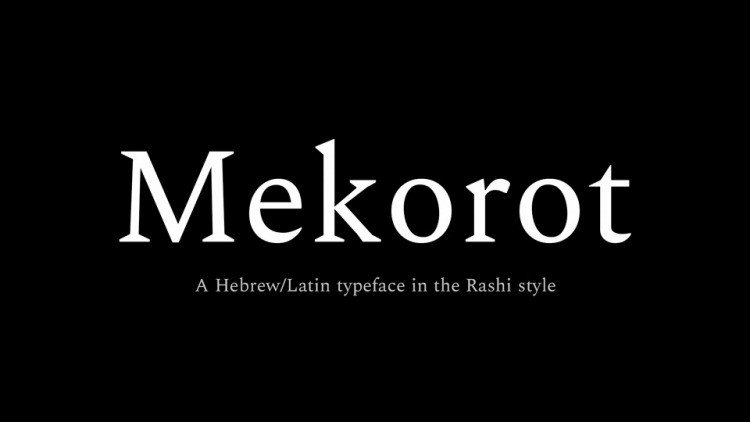
Mekorot Font
Mekorot Font is a free serif typeface in the Rashi style based on the original work by Dr. Alan Hoenig. Originally this project was part of an attempt to create a free version of the Hebrew Talmud, as PDF files, while keeping the original page’s shape (known as ‘Tzurat Hadaf’).